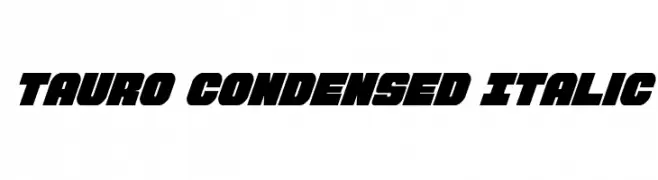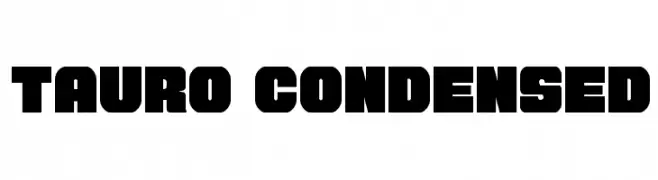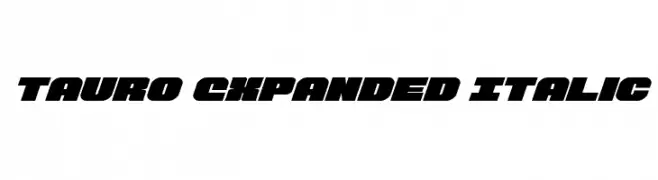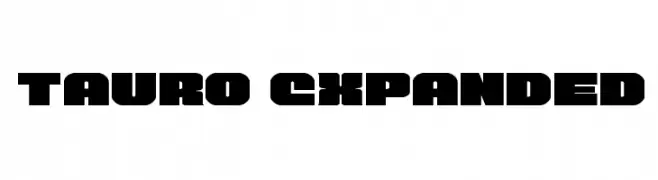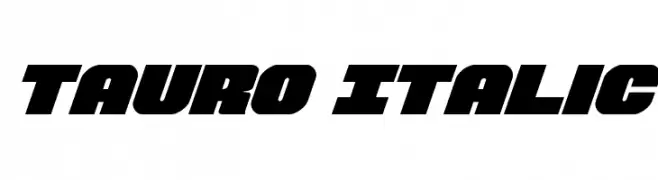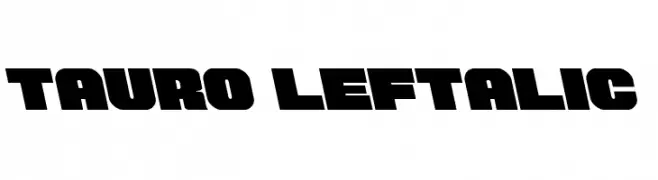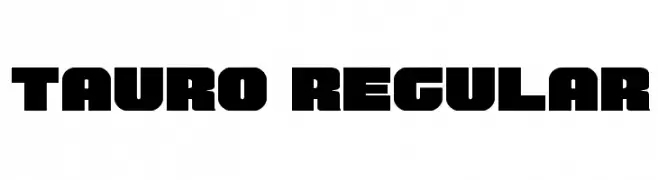
Tauro Regular Font
A bold, geometric font with a strong, block-like design and unique symbols.
Tauro Expanded Font
A bold, modern font with an industrial and expanded design, perfect for impactful headlines.
Tauro Expanded Italic Font
A bold, expanded, and italicized modern font with a dynamic style.
Tauro Italic Font
A bold, italicized font with a modern and dynamic style.
Tauro Condensed Font
A bold, condensed font with a geometric and blocky style.
Tauro Condensed Italic Font
Bold, condensed, and italicized font with a modern, dynamic style.
Tauro Leftalic Font
A bold, modern font with a geometric and industrial style.
Tauro 3D Regular Font
A bold, geometric 3D font with outlined characters and a modern, industrial style.
Tauro Academy Italic Font
A bold, blocky font with a modern and impactful style.
Tauro 3D Italic Font
A bold, 3D italic font with a futuristic and dynamic style.
Tauro Academy Regular Font
A bold, blocky font with a strong, three-dimensional outline.